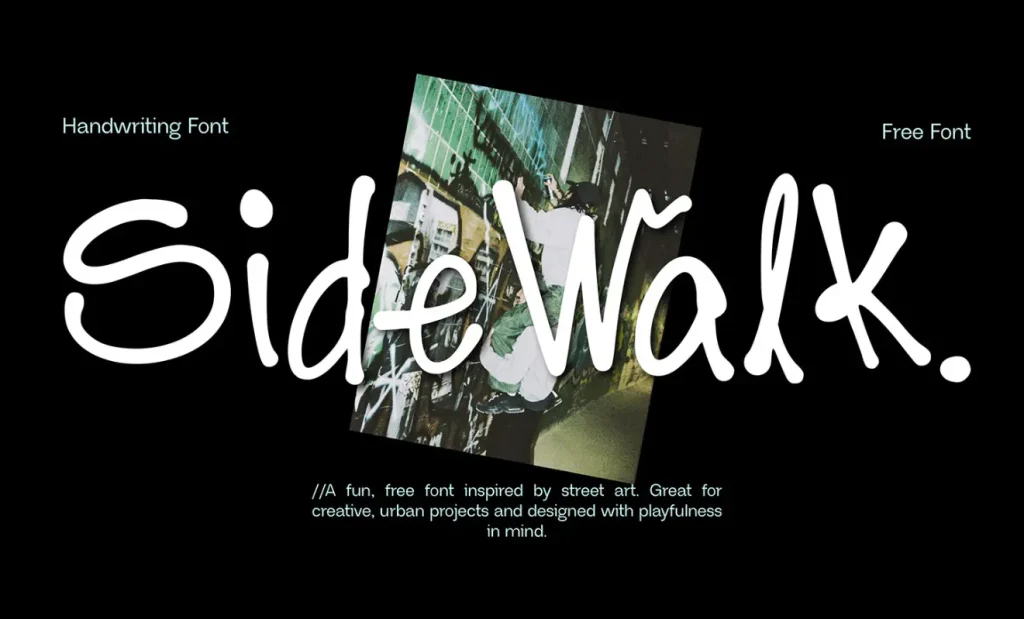
This font infuses your visuals with a bold, expressive character born from cityscapes. It authentically reflects the energetic, imperfect quality of street graphics. Sidewalk offers a unique way to convey a streetwise, contemporary message.
Features
- Distinctive playful character
- Design draws from street art and graffiti
- Embodies an urban, energetic atmosphere
- Presents an imperfect, authentic visual style
- Comprises strong, expressive letterforms
Use Cases
- Design compelling posters for music festivals or urban art exhibitions that require immediate attention.
- Develop distinctive branding for a streetwear label or youth-focused brand that needs an edgy, authentic voice.
- Produce dynamic graphics for social media campaigns advertising concerts, skate events, or city cultural happenings.
- Create impactful headings for website sections or blog posts centered on urban culture, street style, or youth movements.
- Craft expressive lettering for apparel designs, like t-shirts or caps, that benefit from a graffiti-inspired aesthetic.